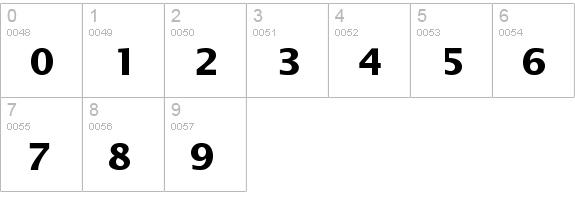
LucidaSansEF-Bold is a strong, high-contrast variant in the LucidaSansEF typeface family \xE2\x80\x94 well suited to headlines, attention-grabbing titles, and strong calls-to-action.
LucidaSansEF-Bold is a versatile and modern font that exudes confidence and strength with its bold and impactful design. The clean lines and sleek curves of this typeface make it perfect for a wide range of design projects, from branding to advertising to web design. What sets LucidaSansEF-Bold apart is its exceptional readability, making it ideal for headlines, titles, and other prominent text elements. The font also offers a sense of professionalism and sophistication, making it a popular choice among designers looking to make a bold statement. The best part is that LucidaSansEF-Bold is available for free download at FontsMarket.com, making it easily accessible to anyone looking to add a touch of boldness to their projects. Whether you're working on a poster, website, or logo, LucidaSansEF-Bold is sure to make a strong impression.